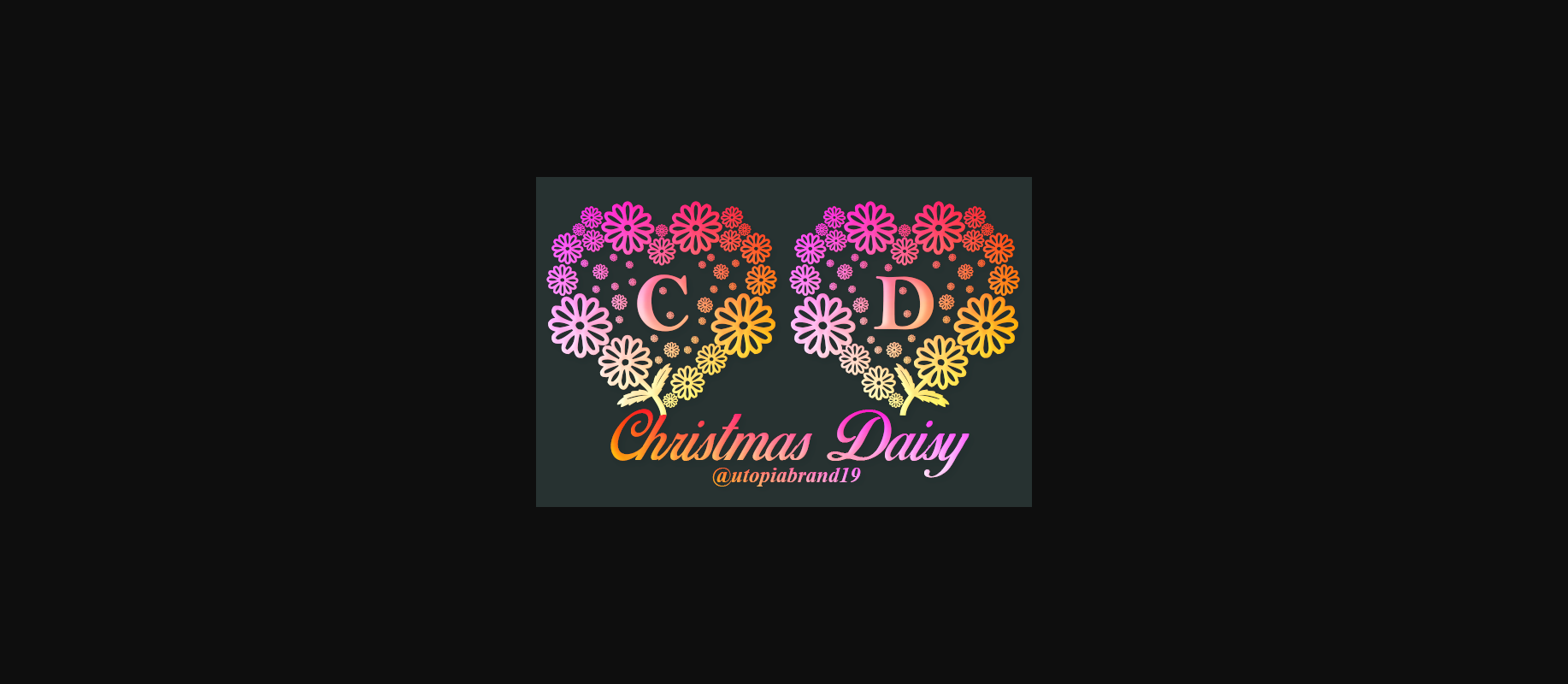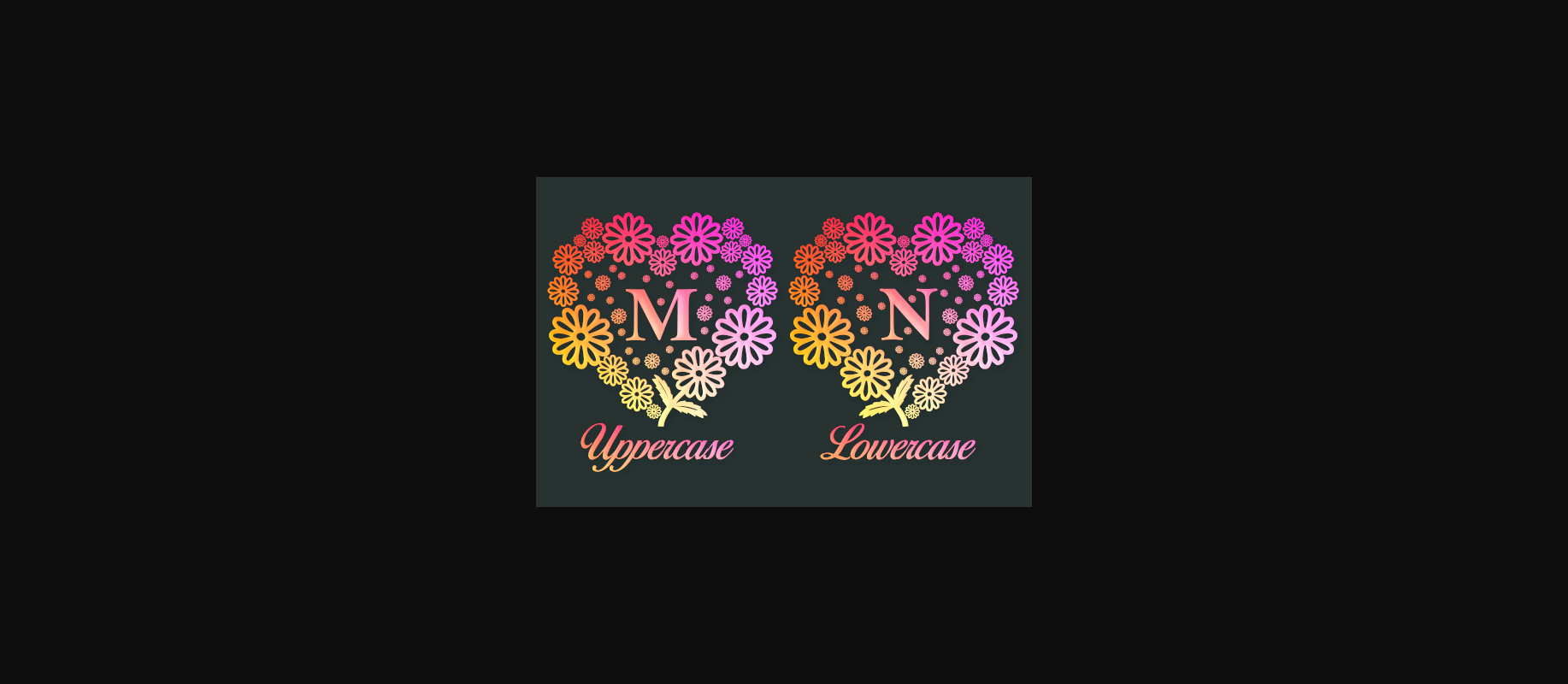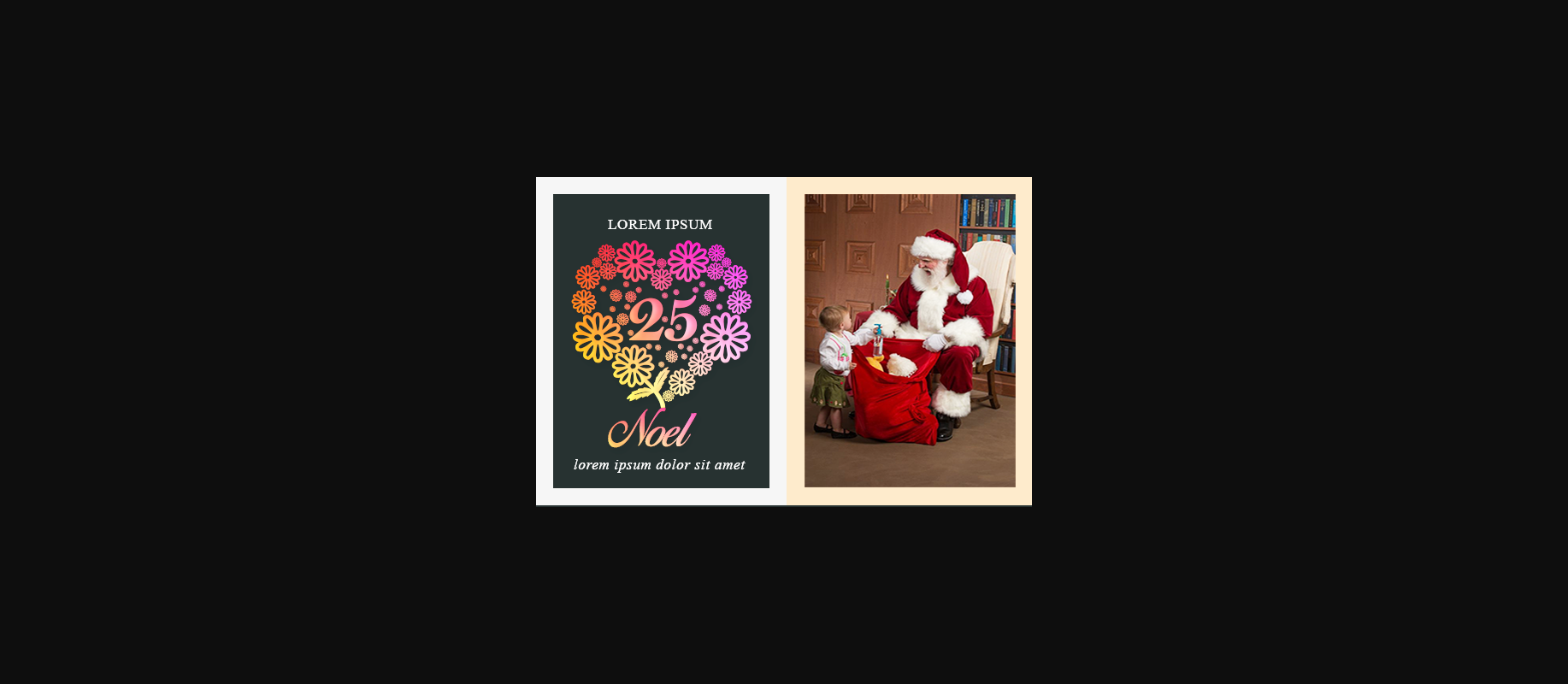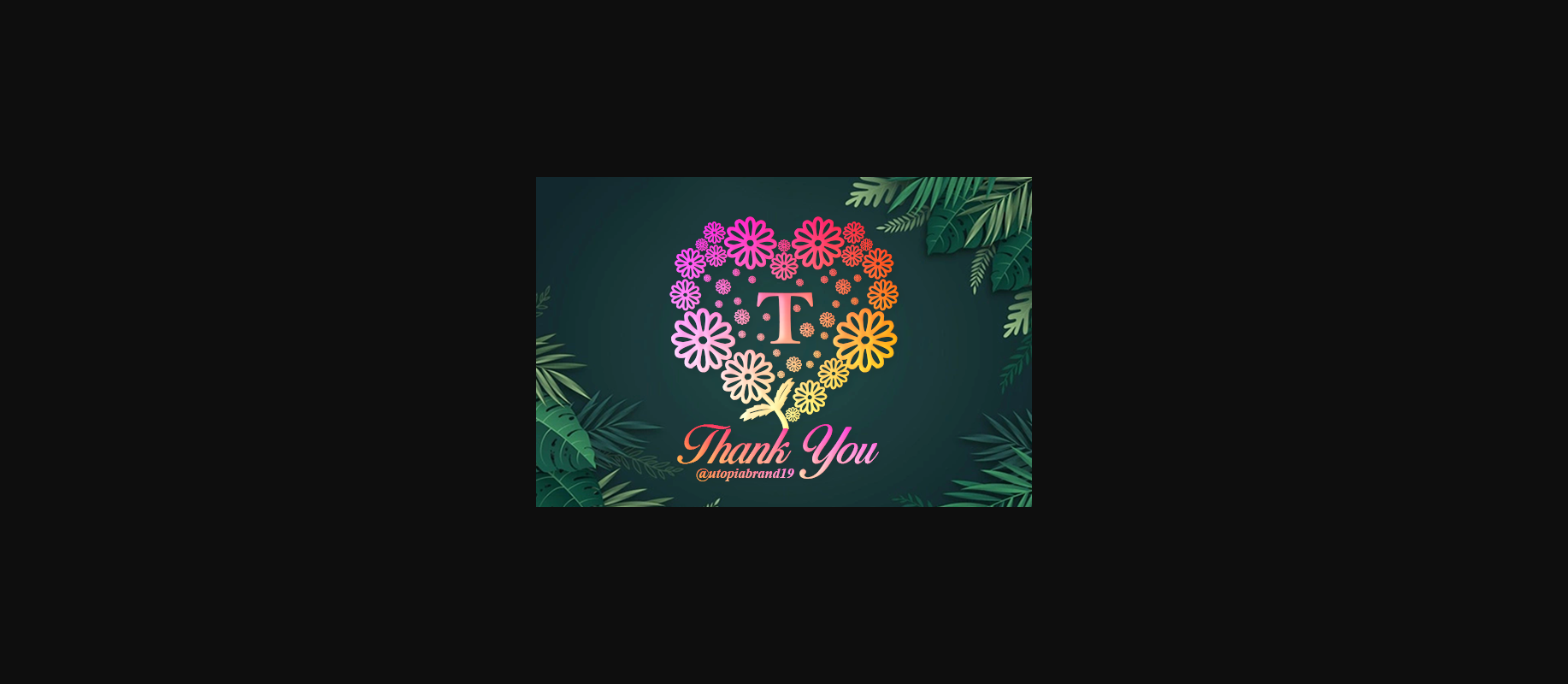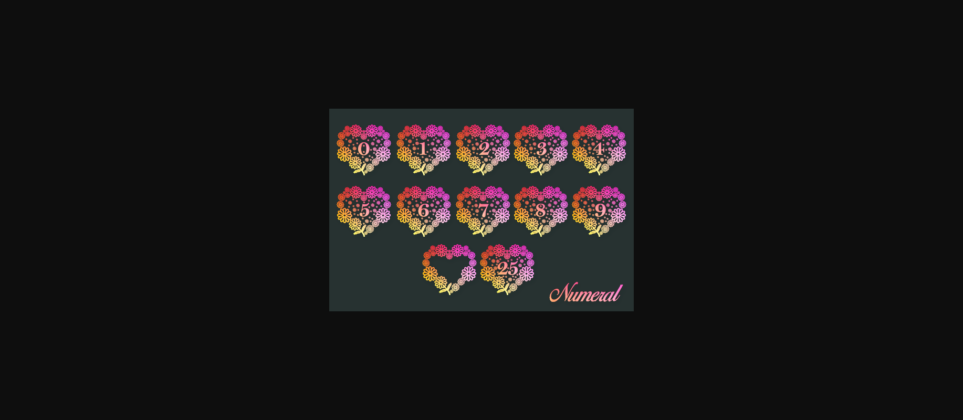
Christmas Daisy Monogram Font
About Christmas Daisy Monogram Font
Christmas Daisy Monogram is a unique and festive decorative font. Fall for its ravishing style and use it to create gorgeous wedding invitations, beautiful stationary art, eye-catching social media posts, and much more!